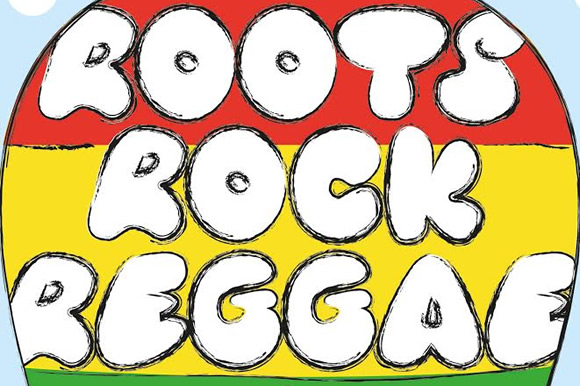
Bubble Ras Font: A Fun and Relaxed Typeface for Creative Projects
The Bubble Ras Font is a unique and eye-catching typeface that has gained popularity among designers and crafters. This font was used in a poster for a submission for the ‘International Reggae Poster competition’ 2015, and its fun and relaxed vibe makes it perfect for a variety of creative projects.
What is Bubble Ras Font?
Bubble Ras Font is a decorative font that features bold, rounded letters with a playful and informal feel. The font is characterized by its bubble-like shapes and irregular curves, giving it a distinctive and quirky look. The font is often used for titles, headings, and short texts, and is particularly suitable for designs that require a fun and laid-back atmosphere.
History of Bubble Ras Font
The origins of Bubble Ras Font are not well-documented, but it is believed to have been created by a designer who was inspired by the reggae culture and the vibrant colors and patterns associated with it. The font has since become popular among designers and crafters who appreciate its unique style and versatility.
Characteristics of Bubble Ras Font
Bubble Ras Font has several characteristics that make it stand out from other fonts. Some of its key features include:
- Bold and rounded letters: The font features bold, rounded letters that give it a playful and informal feel.
- Bubble-like shapes: The font’s bubble-like shapes and irregular curves give it a distinctive and quirky look.
- Fun and relaxed vibe: The font’s fun and relaxed vibe makes it perfect for designs that require a laid-back atmosphere.
Uses of Bubble Ras Font
Bubble Ras Font is a versatile font that can be used for a variety of creative projects, including:
- Poster design: The font’s bold and playful style makes it perfect for poster design, especially for events and campaigns that require a fun and relaxed atmosphere.
- Branding and logo design: The font’s unique style and quirky look make it suitable for branding and logo design, especially for companies that want to convey a fun and laid-back image.
- Crafting and DIY projects: The font’s playful and informal feel makes it perfect for crafting and DIY projects, such as handmade cards, invitations, and decorations.
Tips for Using Bubble Ras Font
Here are some tips for using Bubble Ras Font effectively:
- Use it sparingly: The font’s bold and playful style can be overwhelming if used excessively. Use it sparingly to add emphasis and create visual interest.
- Pair it with other fonts: The font’s unique style can be paired with other fonts to create a visually appealing contrast. Try pairing it with a clean and simple font for a striking effect.
- Experiment with colors: The font’s fun and relaxed vibe can be enhanced with bright and bold colors. Experiment with different colors to find the perfect combination for your design.
Bubble Ras Font is a fun and relaxed typeface that is perfect for creative projects that require a playful and informal atmosphere. Its unique style and quirky look make it suitable for a variety of designs, from poster design to branding and logo design. With its bold and rounded letters, bubble-like shapes, and irregular curves, Bubble Ras Font is sure to add a touch of personality and whimsy to any design.
Get Creative with Bubble Ras Font
If you’re a designer or crafter looking for a font that can add a fun and relaxed vibe to your projects, Bubble Ras Font is definitely worth checking out. With its versatility and unique style, it’s perfect for a wide range of creative projects. So why not give it a try and see how you can use Bubble Ras Font to add some personality and whimsy to your designs?